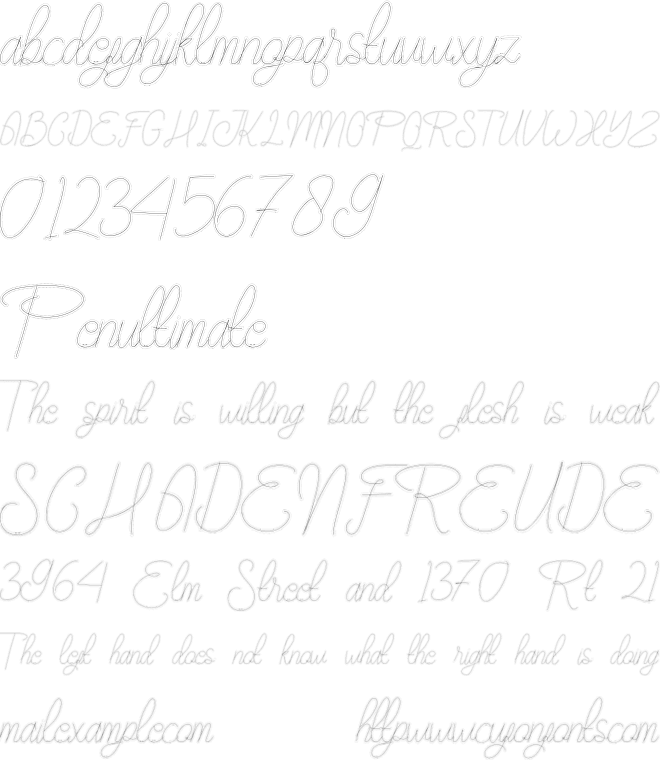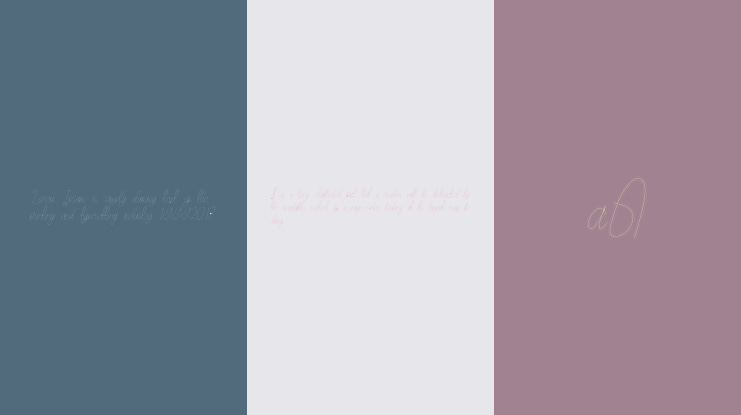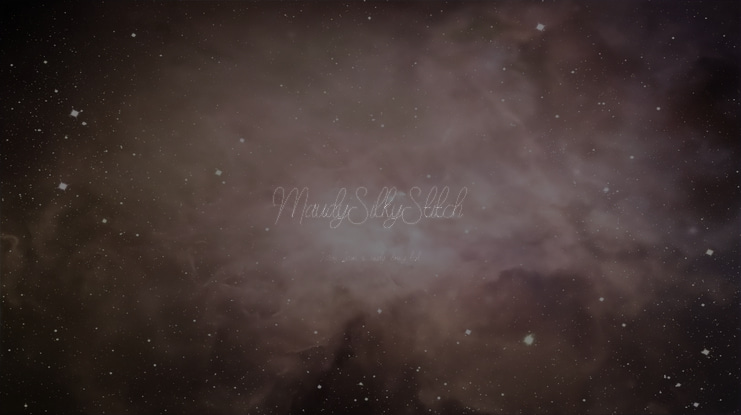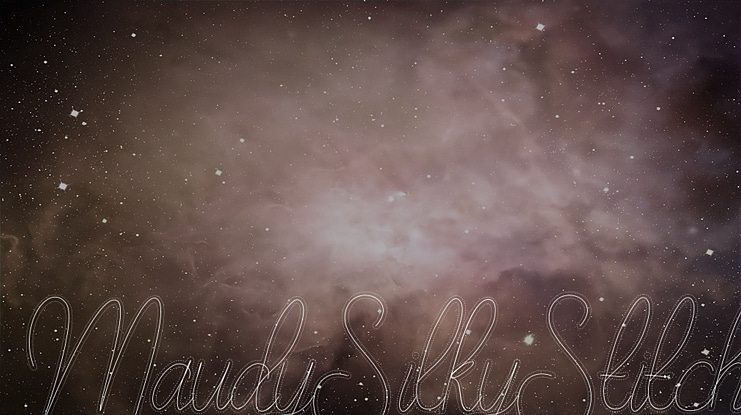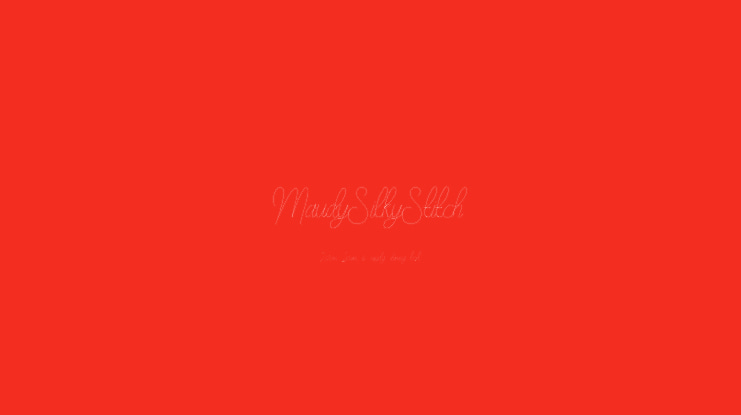
Maudy_Silky_Stitch Font
Maudy Silky is a beautiful and delicate script faux stitch embroidery font that exudes elegance and class. This font is specially made for those who need a beautiful and refreshing look for their designs. very suitable for any design with a vintage look and want to show the feel of embroidery